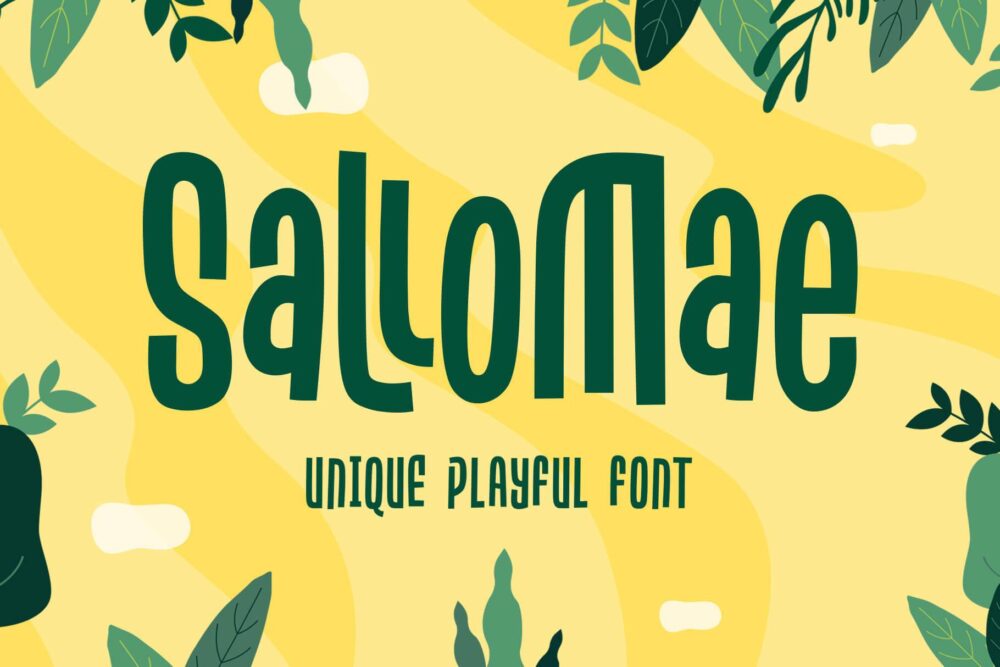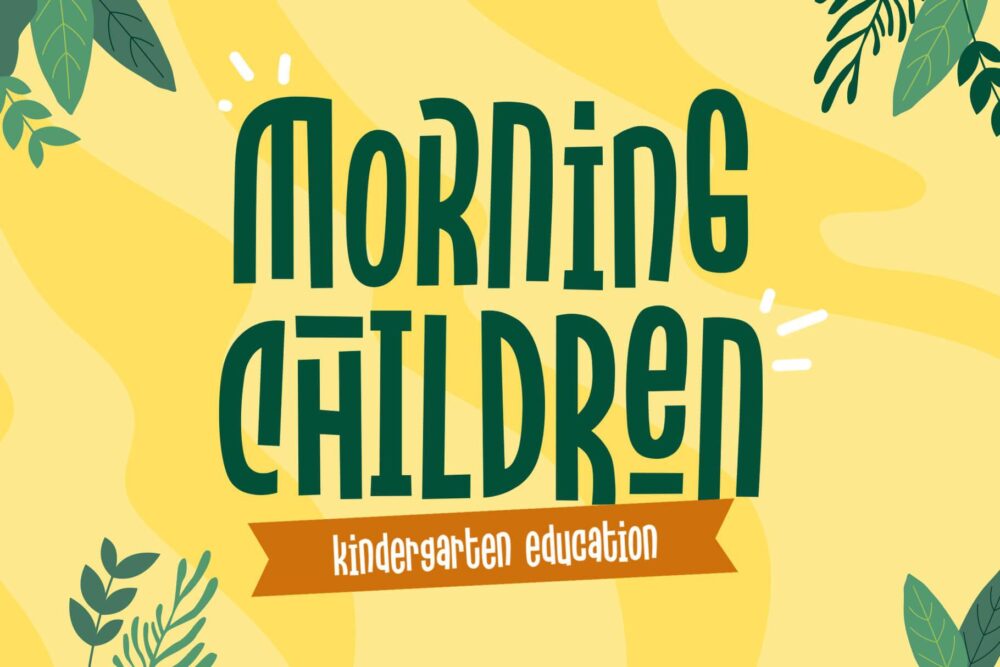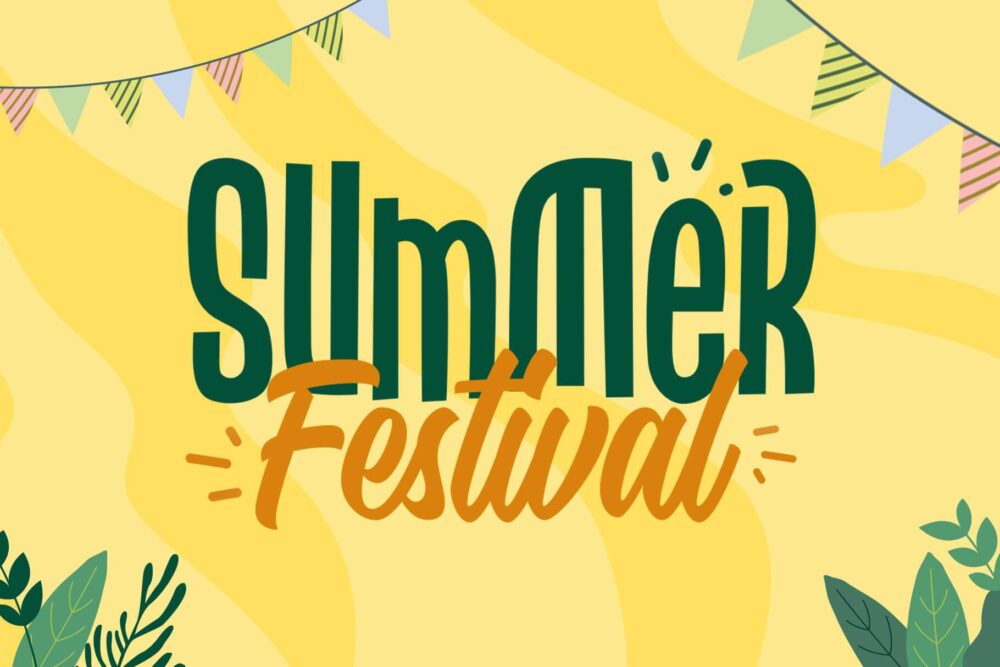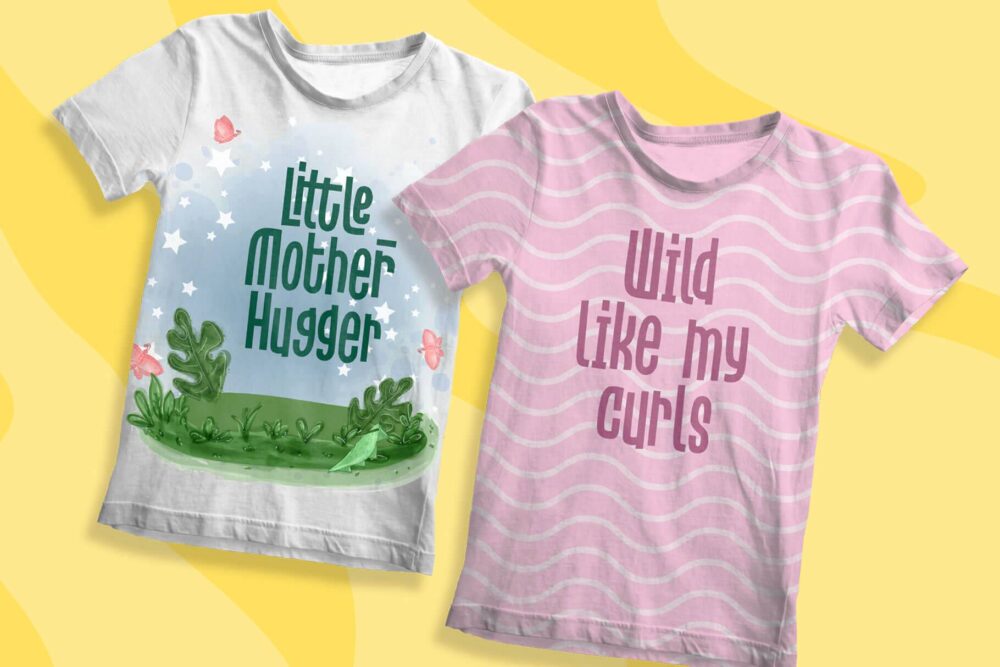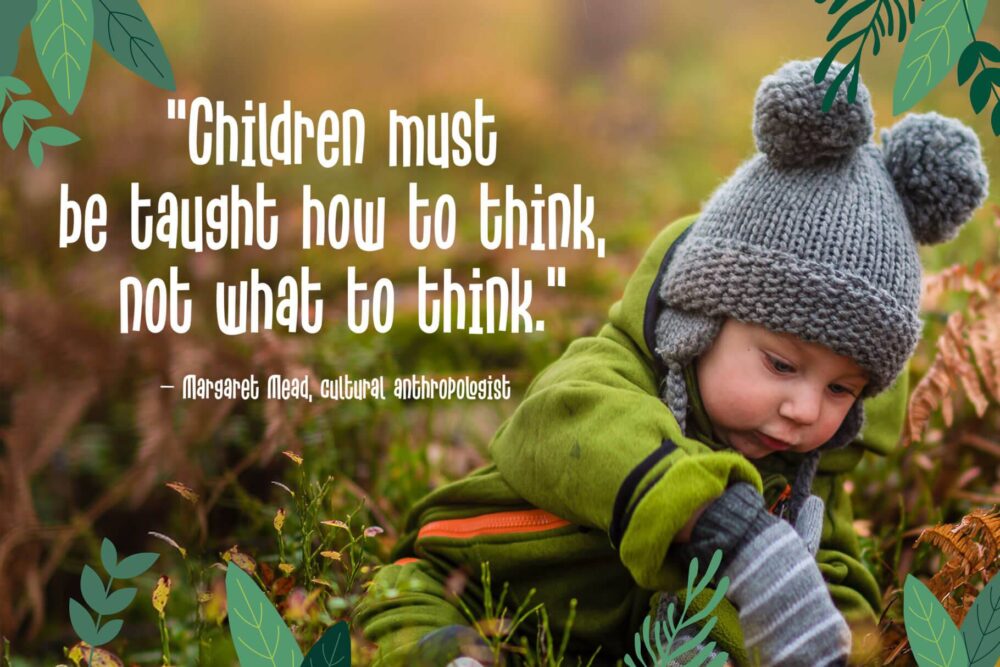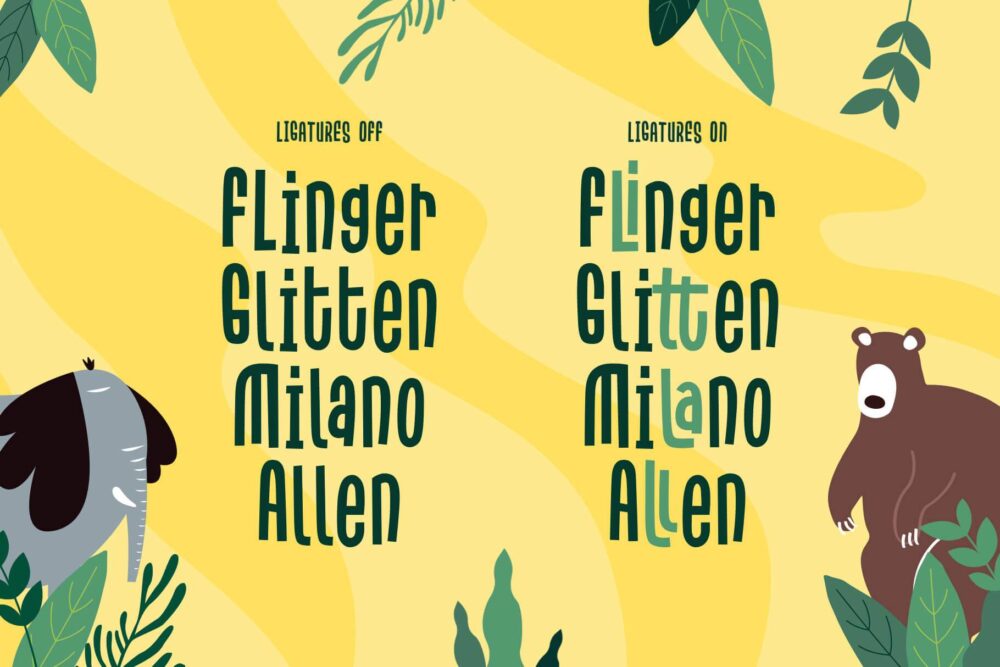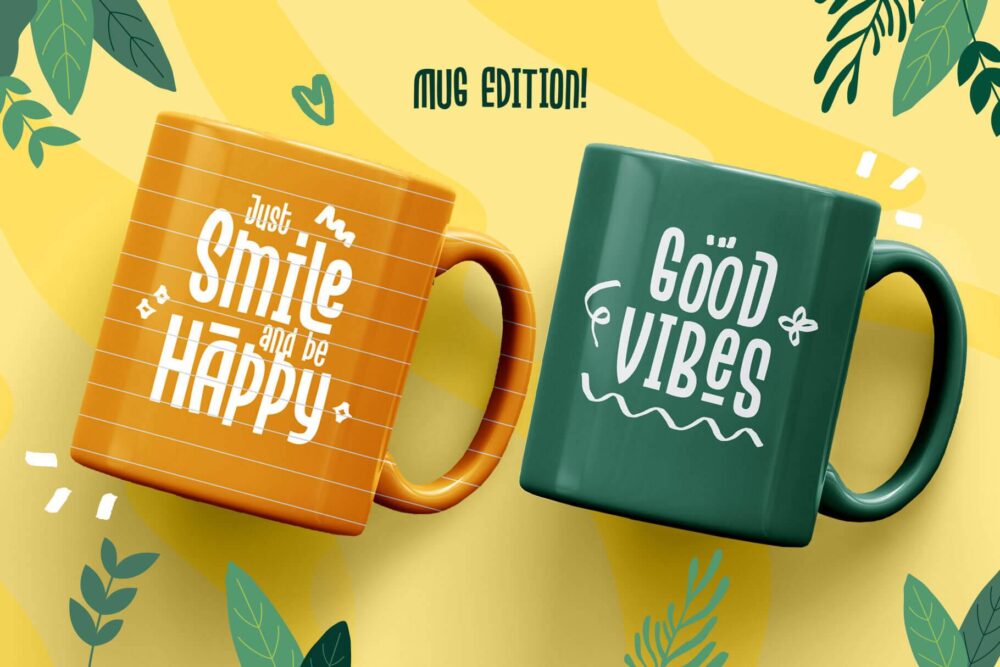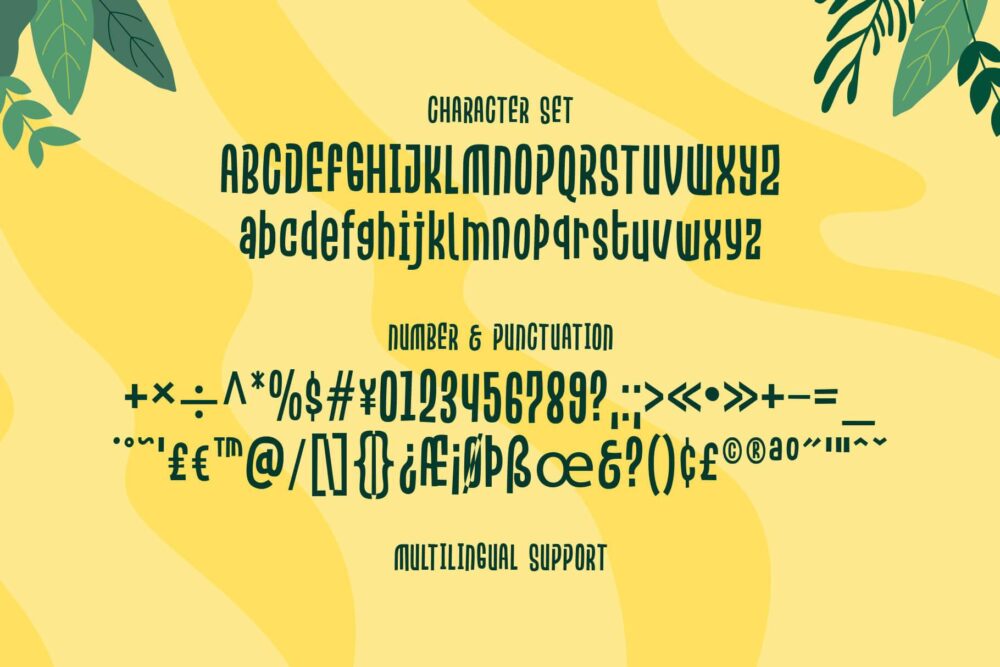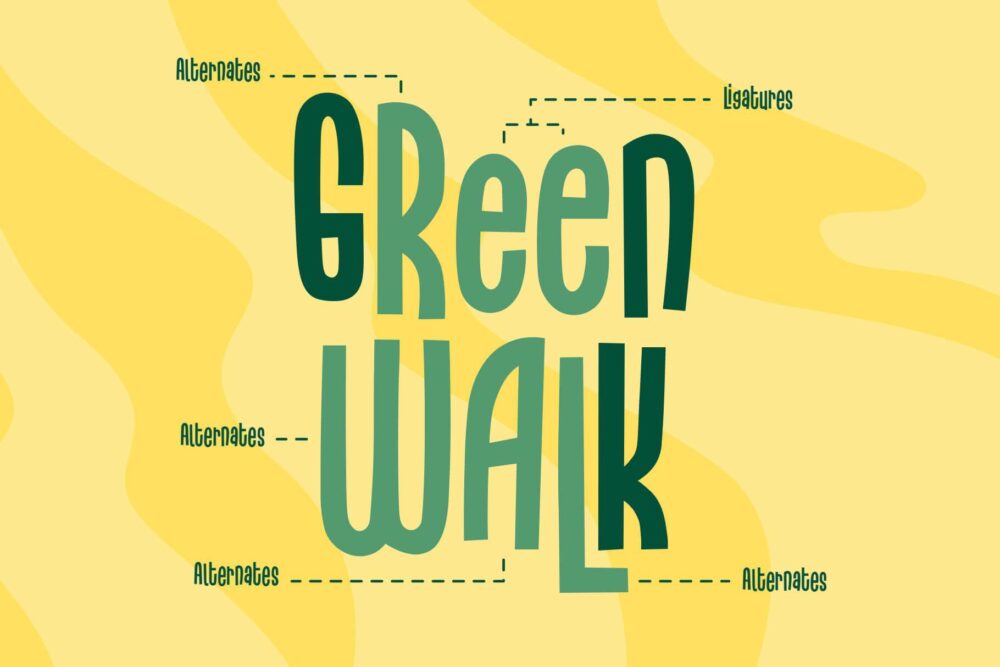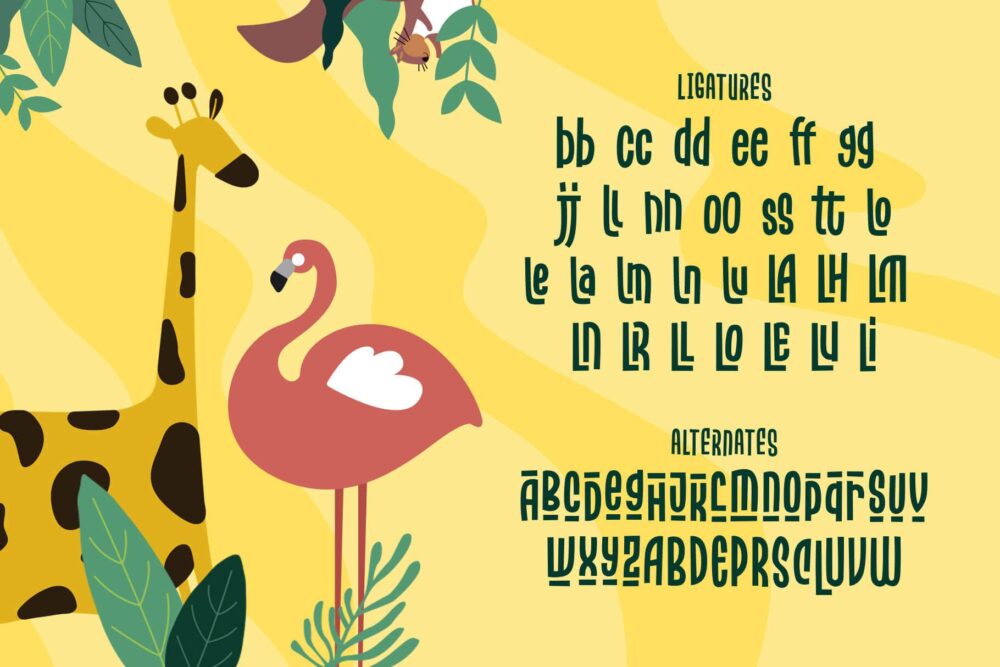
Say hello, to Sallomae! A playful display font. Inspired by jungle cartoon, and children’s book. Sallomae designed with a cheerful monoline concept and adjusted well to keep the legibility. Sallomae is a flexible typeface that you can use for many kinds of stuff and themes.
You can combine the uppercase and lowercase to get the more unique and cute design, equipped with stylistic alternates, ligatures, Sallomae is perfect for kids’ merchandise, quotes, t-shirts, posters, social media, pillow, packaging, storybook, food menu, cafe decoration, logos, and much more!
Mix and cheer up your day with Sallomae!